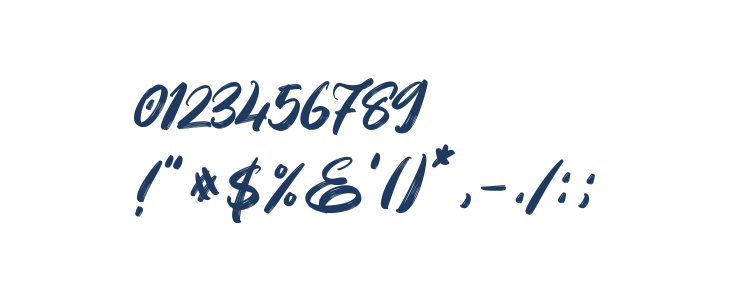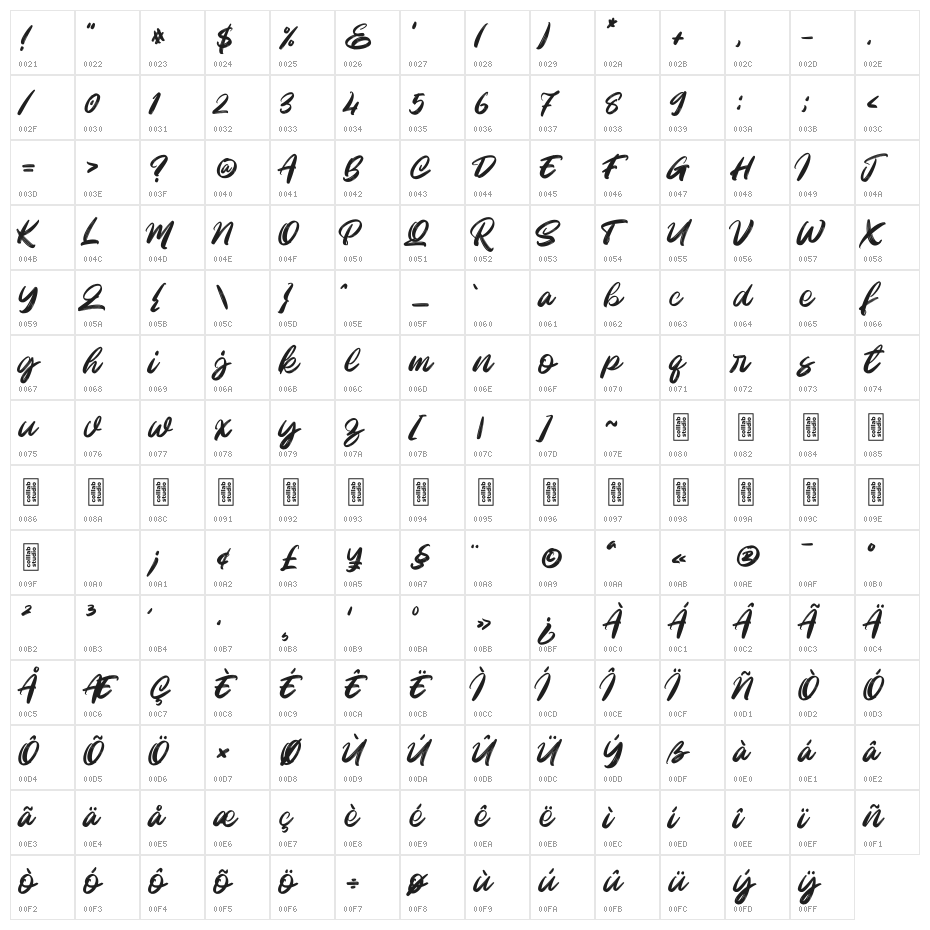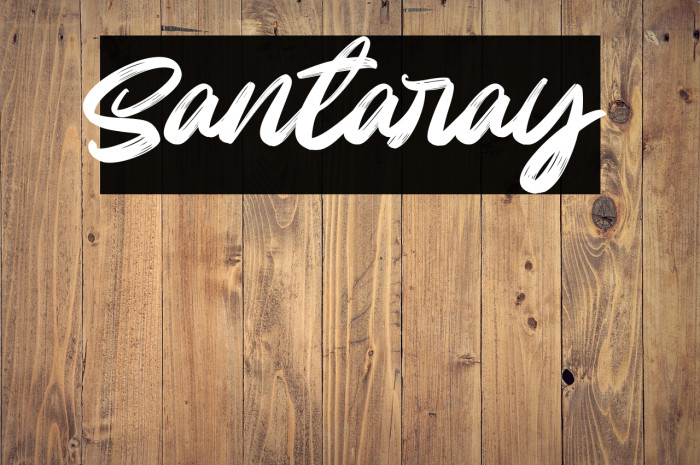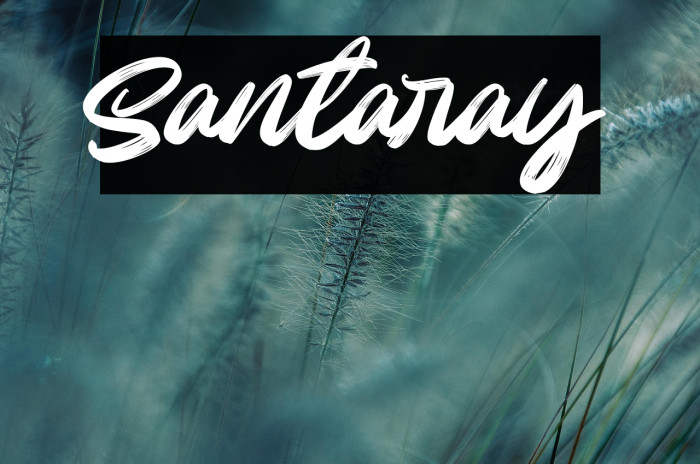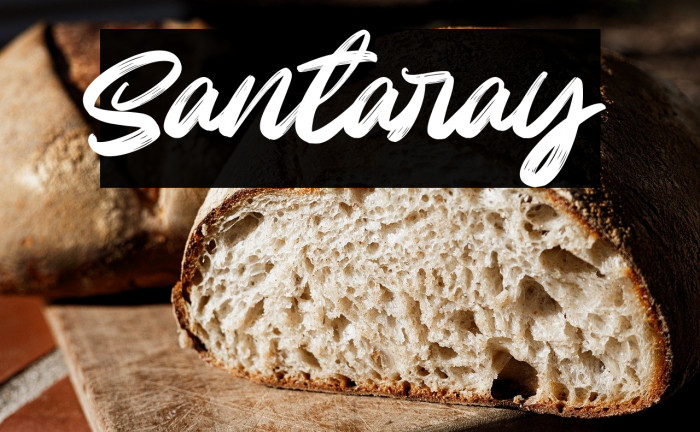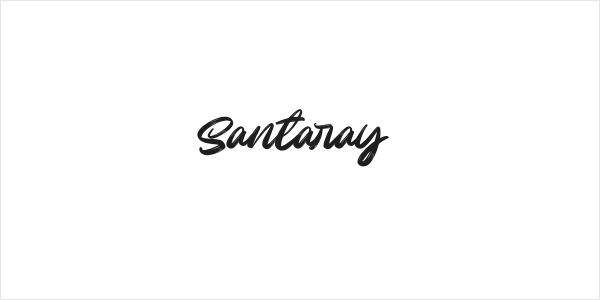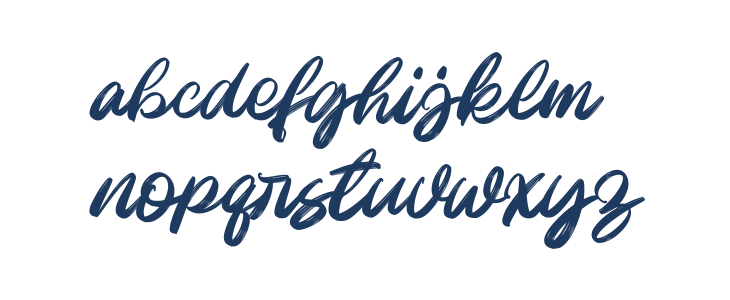
Santaray Font
Santaray Description
This font features a bold, expressive script style with a brush-like texture, giving it a dynamic and energetic appearance. The strokes are thick and varied, with a high contrast between the thick and thin parts of the letters, adding a sense of movement and fluidity. The characters are connected in a cursive manner, enhancing the handwritten feel. The uppercase letters are slightly larger and more pronounced, while the lowercase letters maintain a consistent flow. Numbers and special characters are designed to match the overall style, ensuring a cohesive look across all text. This font is ideal for projects that require a personal touch or a bold statement.